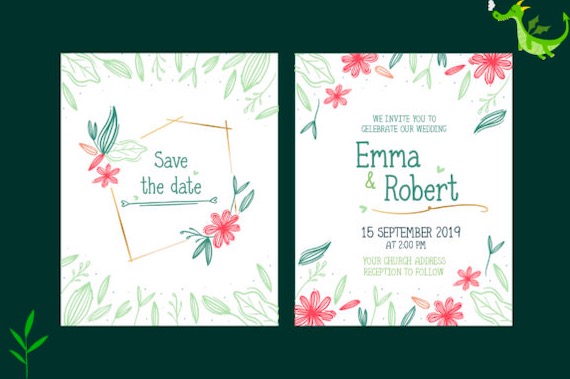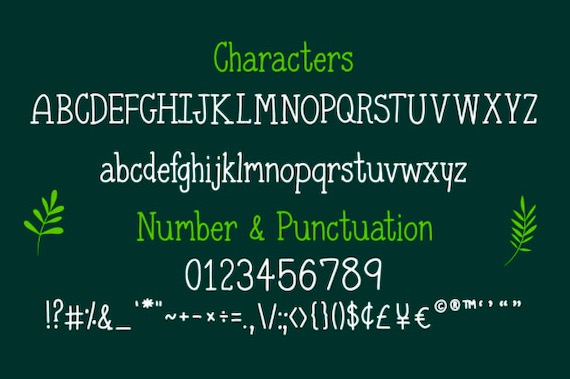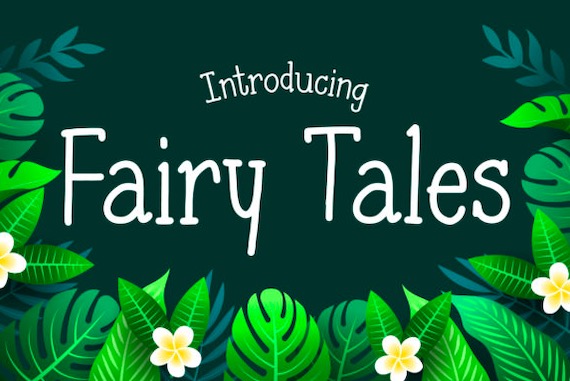
Fairy Tales Font was created for the latest and modern designs. Moreover, it’s a fun and cute script font that was made by using a light brush pen.
Fairy Tales Script Font